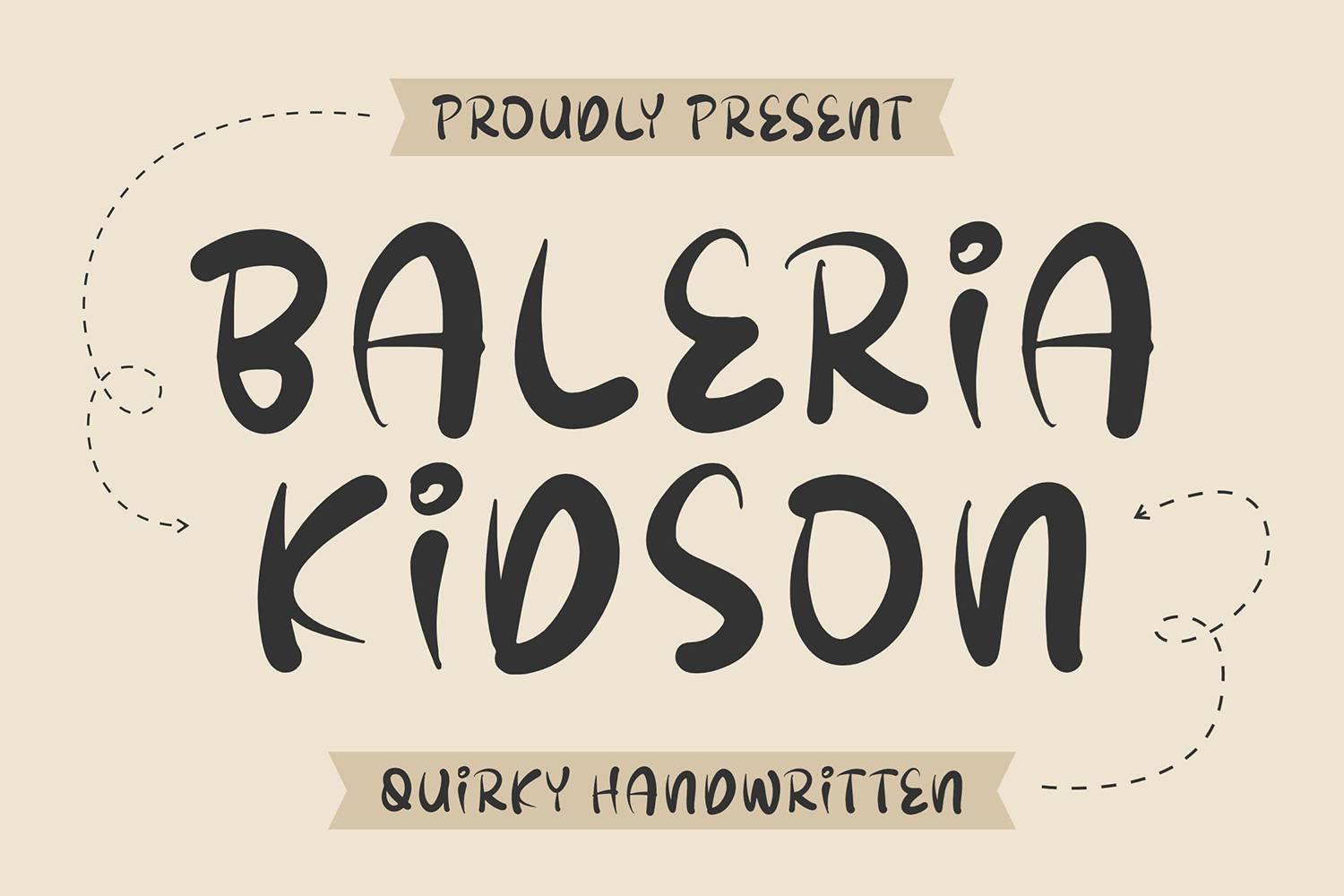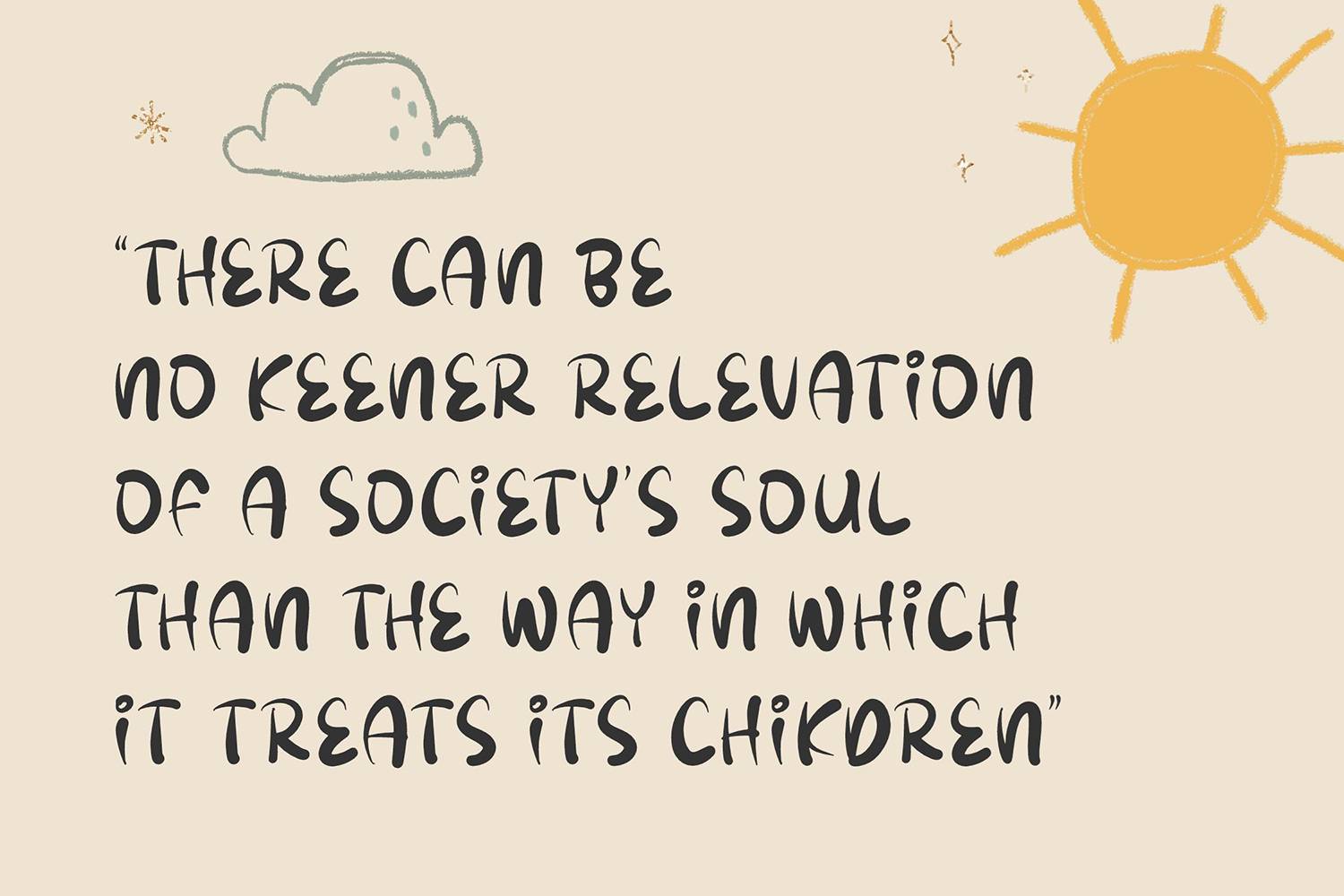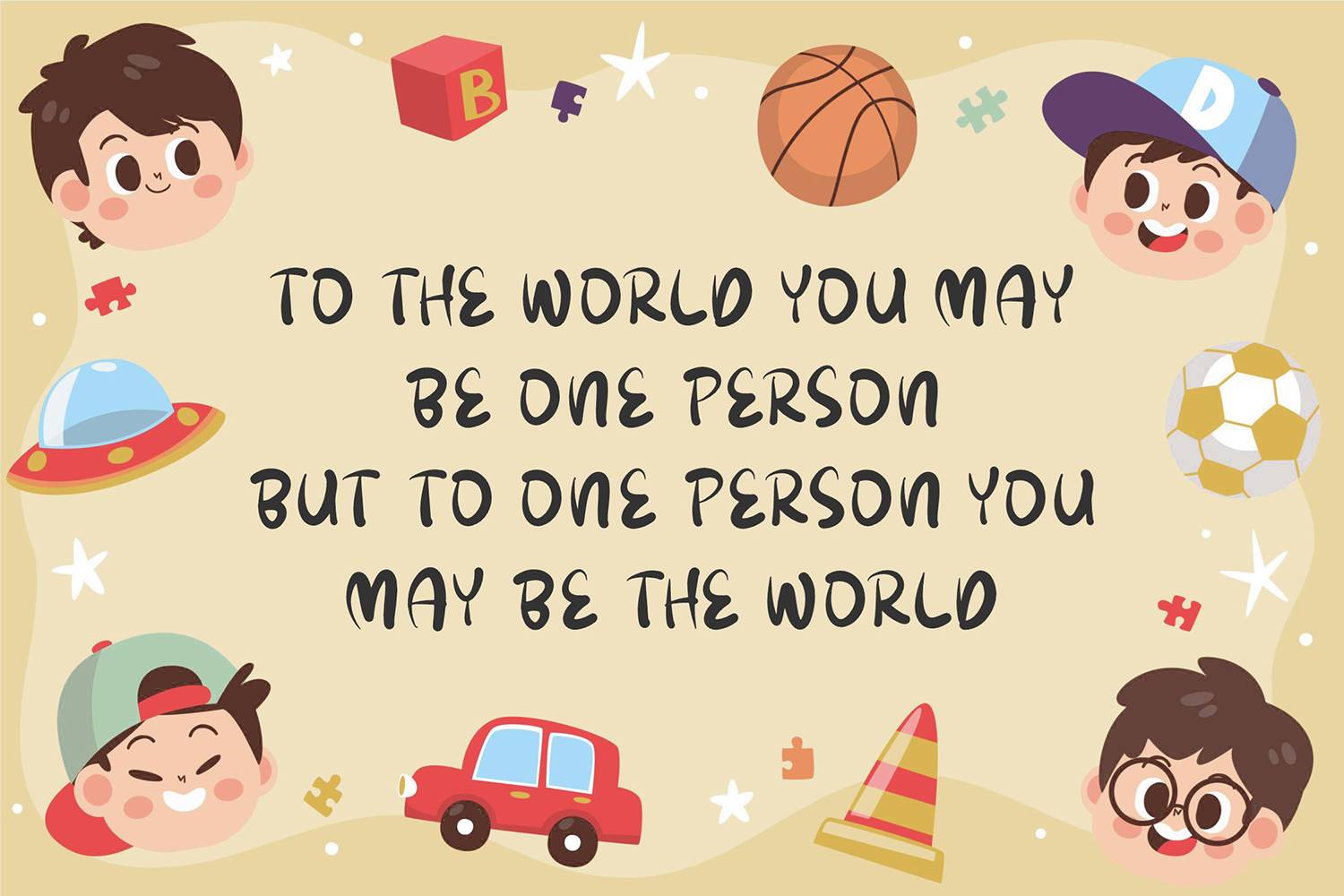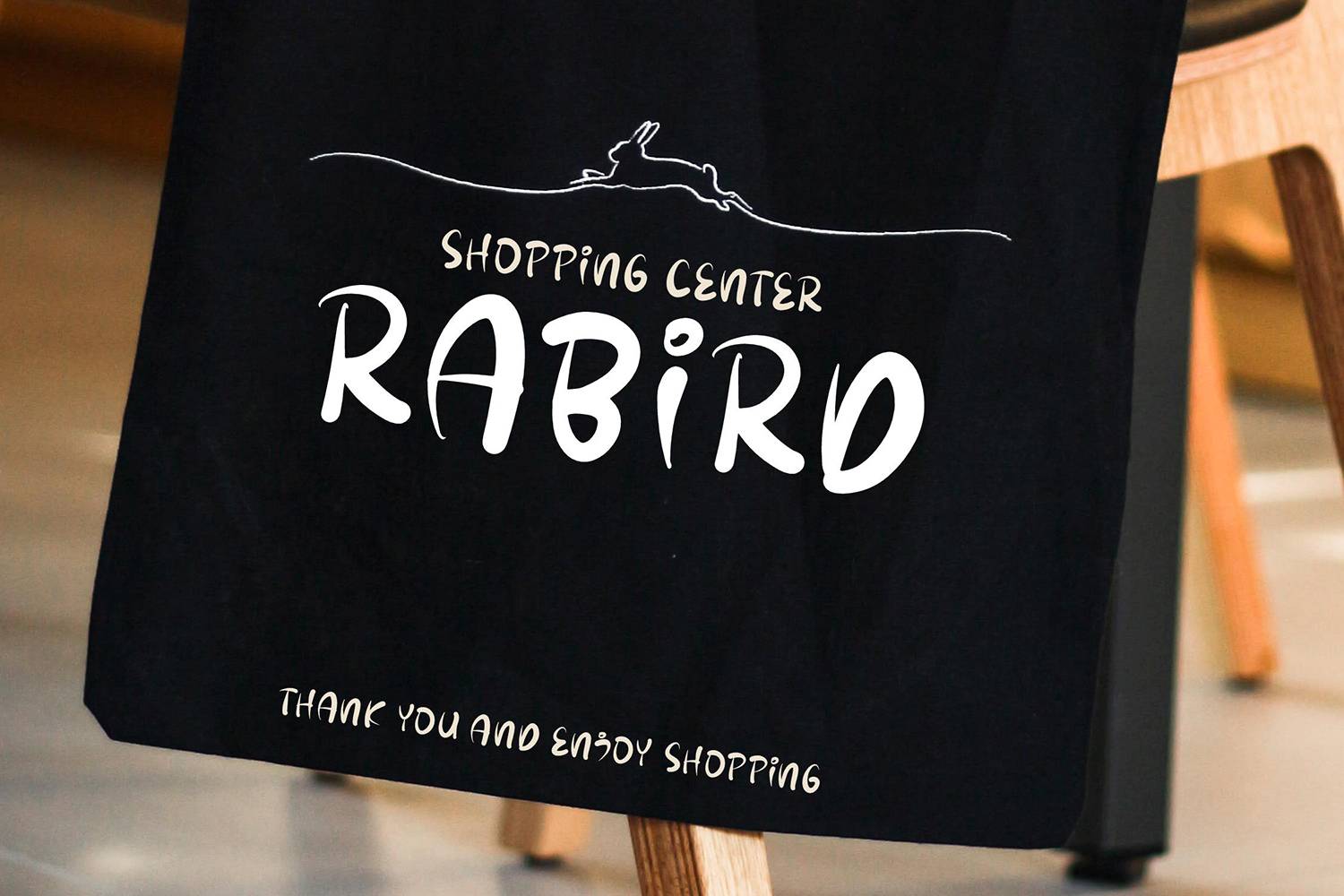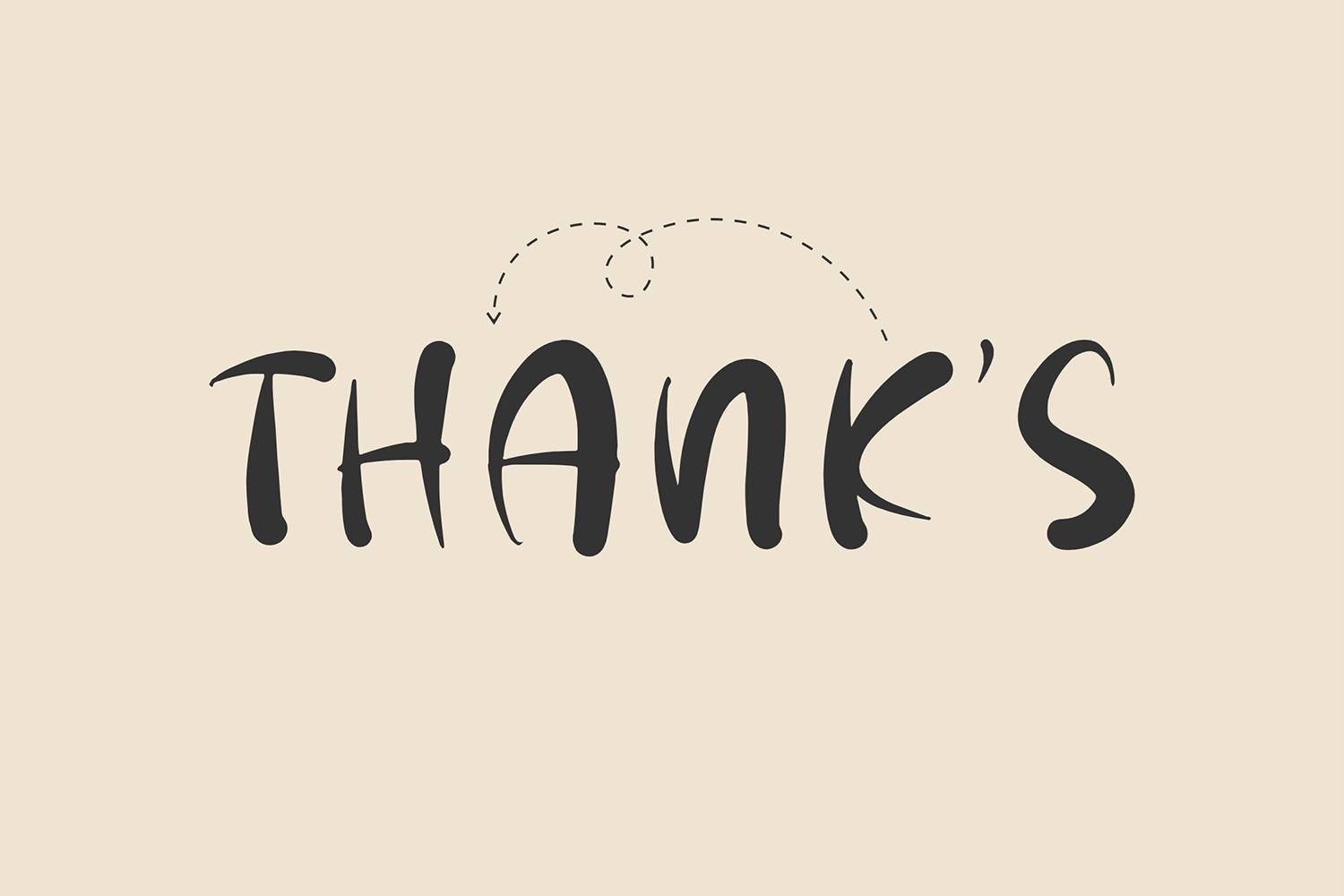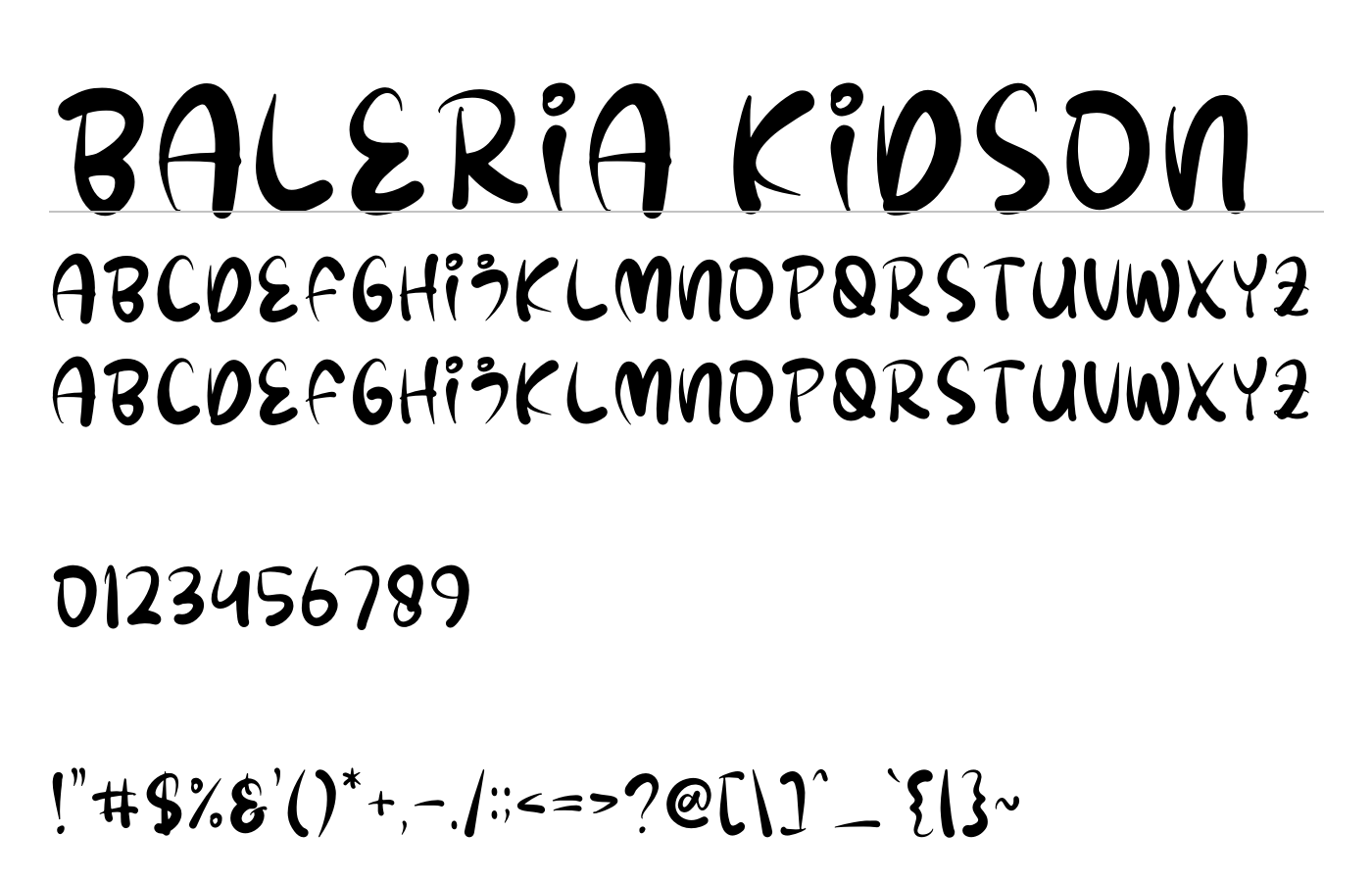
Baleria Kidson is a playful, handwritten sans serif font with a casual, friendly feel. It features uneven, bold strokes with a slight bounce and quirky letterforms that bring a whimsical, childlike charm, making it perfect for creative projects, children’s books, or informal branding. Its lively style works well for headlines and logos where personality and approachability are key.
Baleria Kidson Font